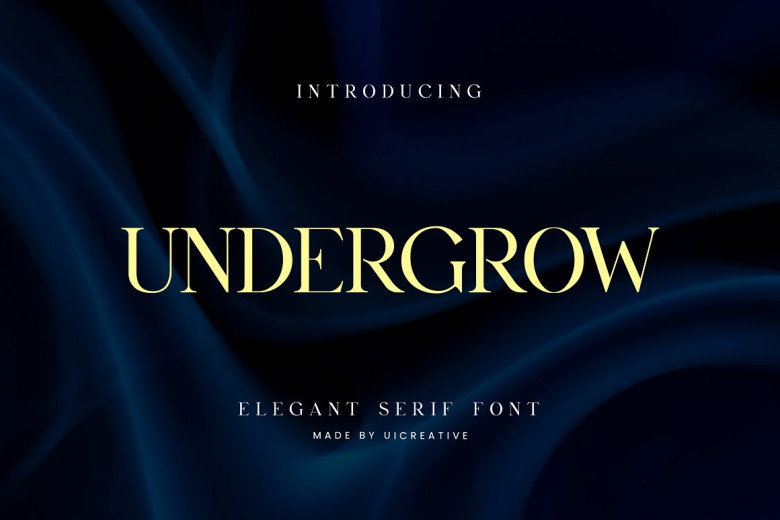
Introducing our new product Undergrow Font. An elegant sans-serif typeface. A traditional-style serif font, it fits well in any use; whether laid out in traditional presswork, or running in tightly-kerned lines of video caption. Another name for this would be”failure “. It is a loser of epic proportions. But rather than chucking it onto life’s big heap of rubbish, here we are selling an elegant font family with that same familiar failure name on each face. And finally back into the business again.
Undergrow Serif Font